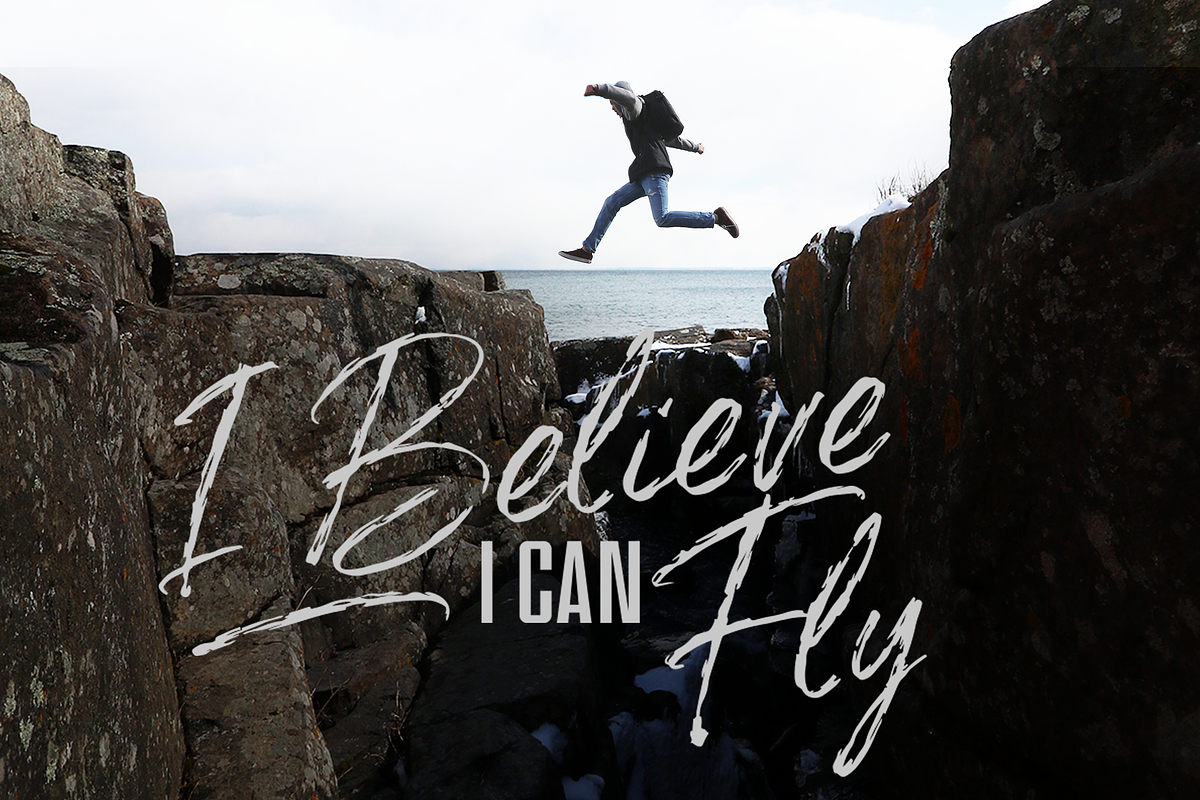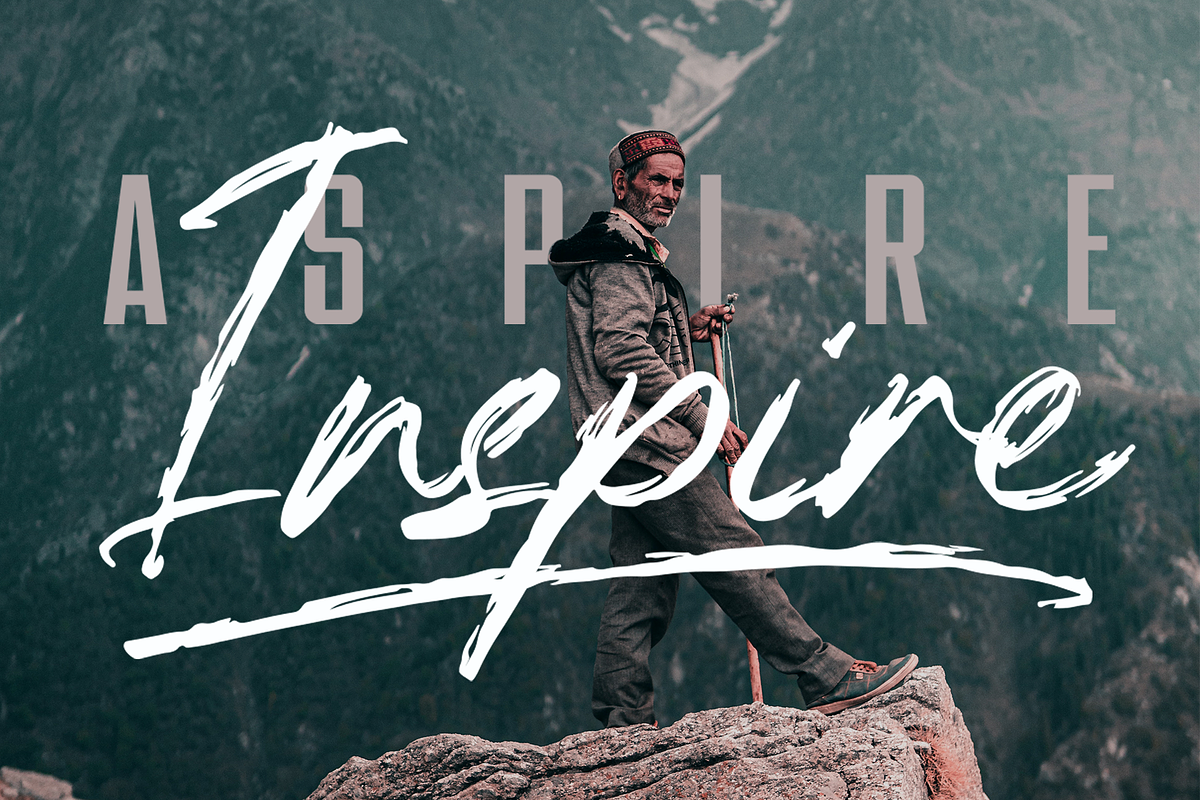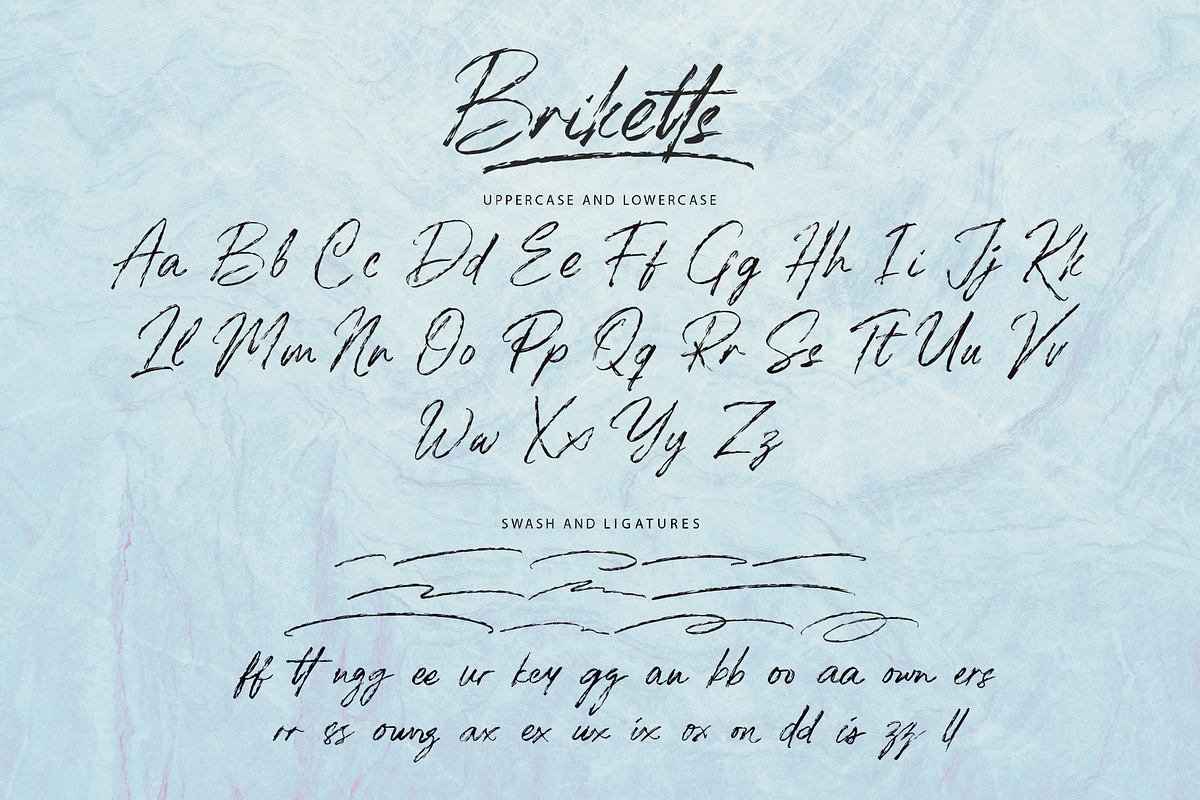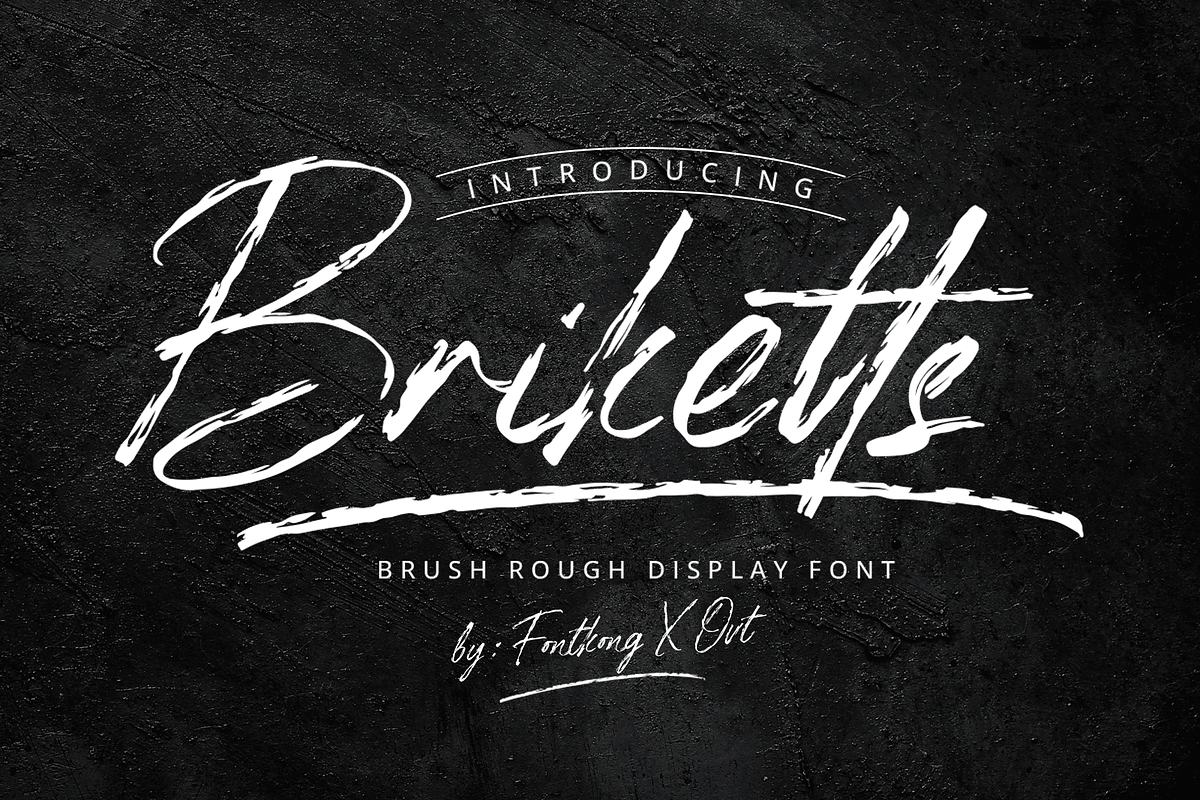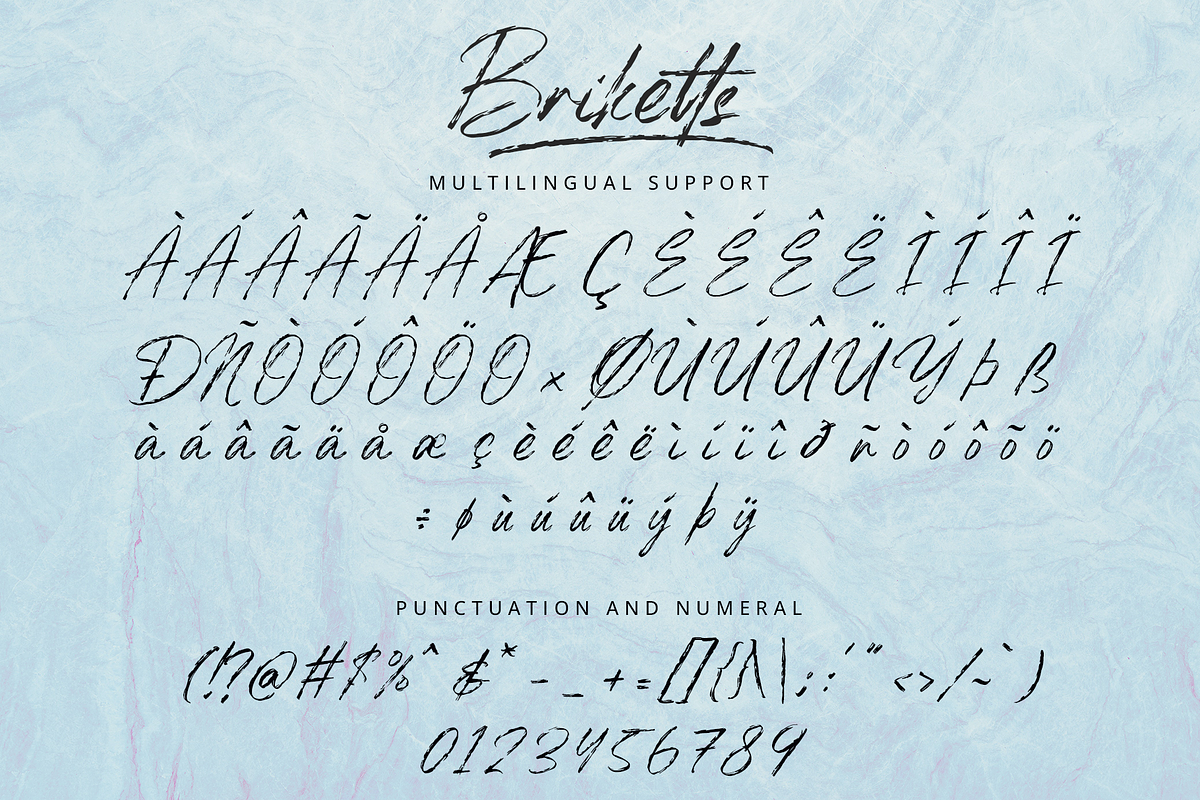
Briketts - Brush Rough Display Font
Introducing "Briketts," a brush rough display font designed to bring a raw and bold expression to your creative projects. With its rugged texture and dynamic strokes, Briketts captures the essence of handcrafted typography, making it perfect for designs that demand attention and convey a sense of authenticity.
Ideal for posters, logos, headlines, and branding materials, Briketts combines the power of brush strokes with a rough, textured finish, adding a unique and edgy aesthetic to your work. Each letter is meticulously crafted to reflect the spontaneity and energy of hand-drawn brush lettering.
The "Briketts" font includes a comprehensive set of uppercase and lowercase letters, numbers, and punctuation marks, ensuring versatility and flexibility for all your design needs. Whether you're creating bold advertisements or eye-catching event posters, Briketts enhances your projects with its strong and expressive character.
Embrace the raw, bold energy of Briketts, and let your designs make a powerful statement.